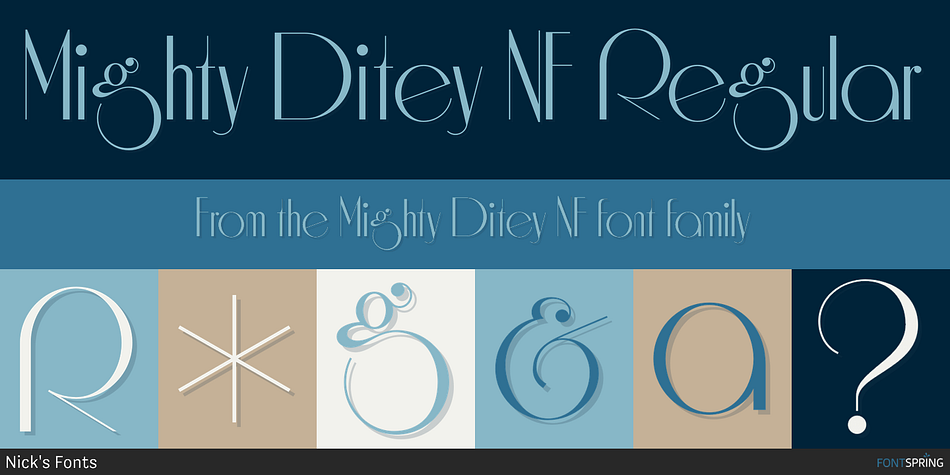
Mighty Ditey NF is a art deco font published by Nick's Fonts.
A delightfully different typeface named Aphrodite, designed by Richard Nebiolo for Photolettering in the 1970s, provided the pattern for this svelte beauty.
Graceful and elegant, it’s the perfect choice for tasteful yet commanding headlines.